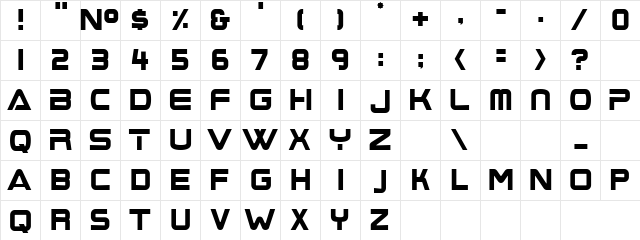
Harvest Regular
Design Context for Harvest Typeface
Harvest takes a measured approach to typography — its balanced proportions and neutral character make it a reliable workhorse for both digital and print work.
Pro Tip: Use Harvest in both headline and body roles to test its range before committing to a single application.